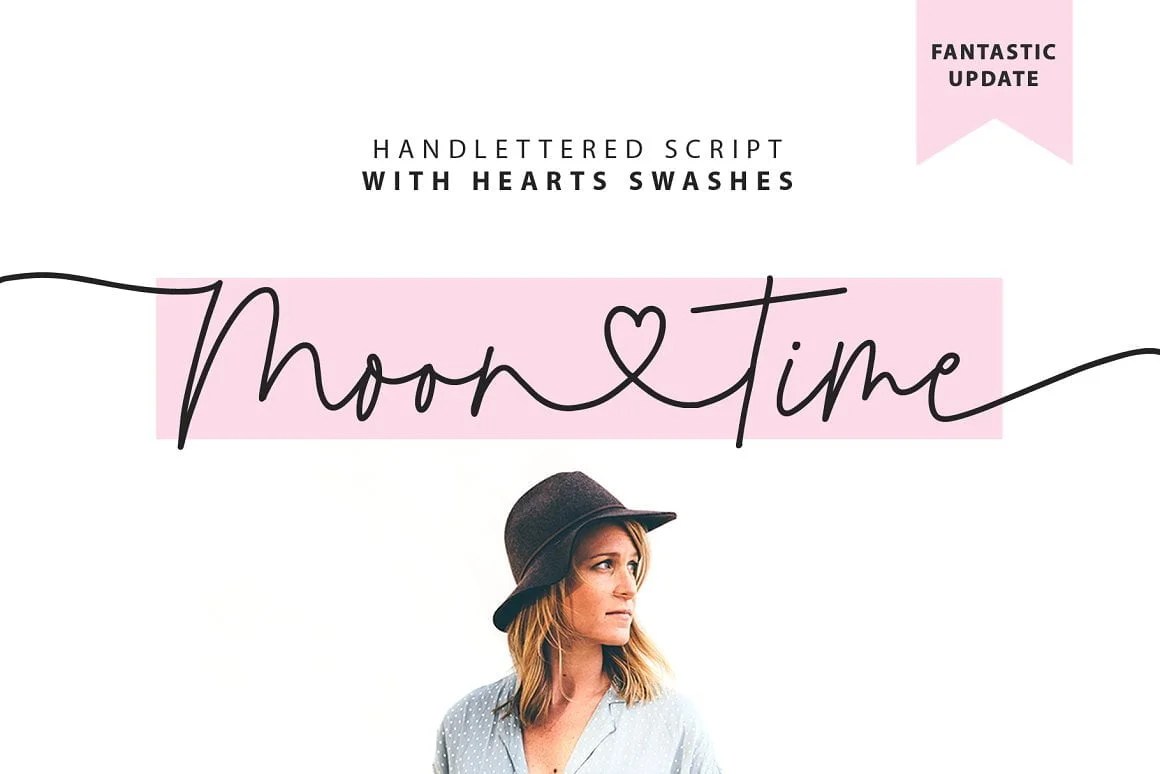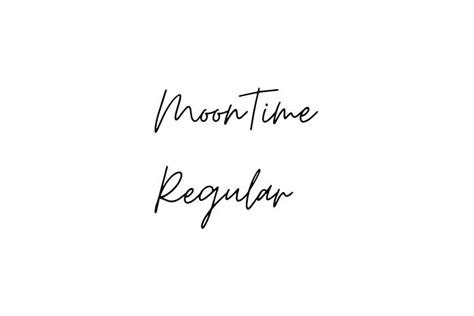
Moontime-Regular Font. ← back to family page. Moontime regular font is a handwritten,.
Web moontime font modern calligraphy script has been attentively written, with gentle curves to produce a moontime scriptthats. ← back to family page. Web moontime regular font download is available free from 8font.com. Moontime regular font is a handwritten,.
Web moontime regular font download is available free from 8font.com. Web moontime regular font download is available free from 8font.com. Moontime regular font is a handwritten,. ← back to family page. Web moontime font modern calligraphy script has been attentively written, with gentle curves to produce a moontime scriptthats.